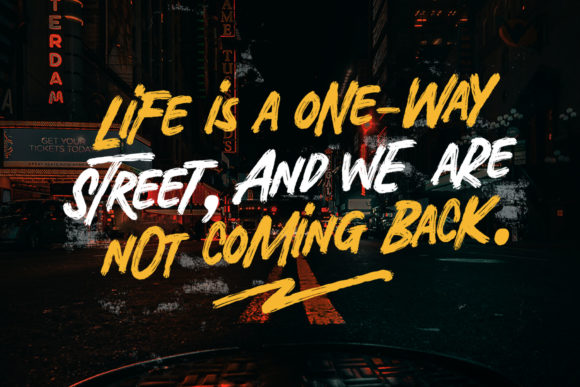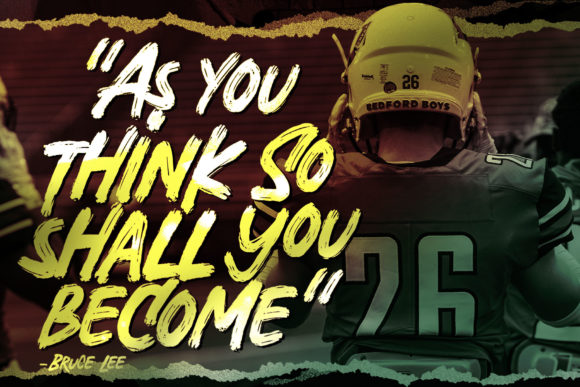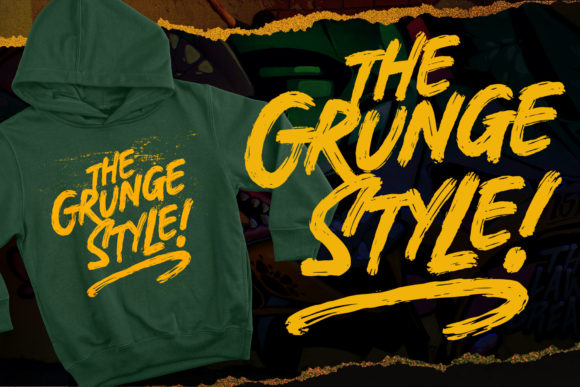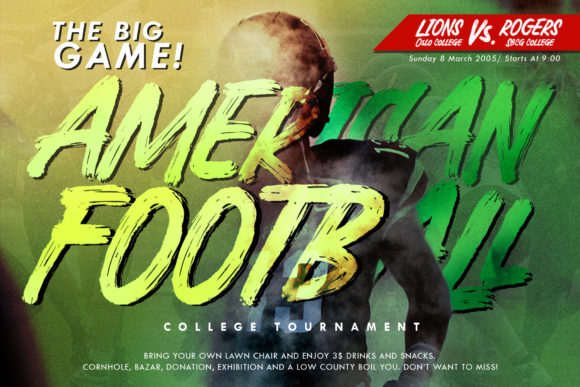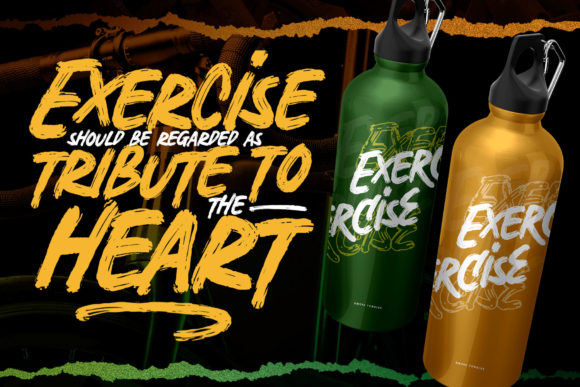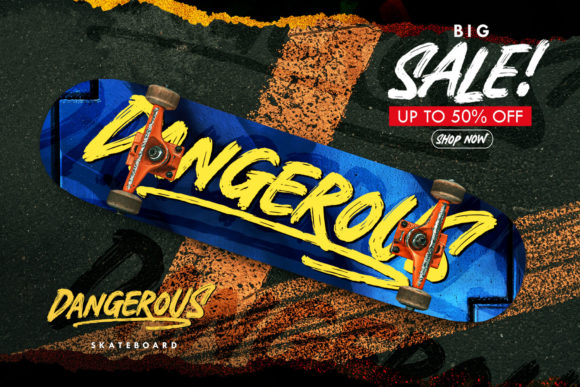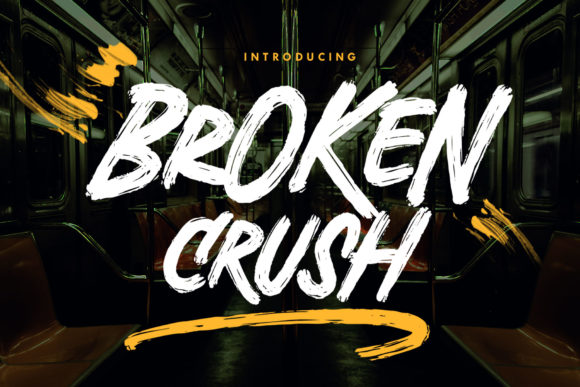
Introducing Broken Crush Font: The Urban Styled Display Font for Informal Designs
Are you tired of using the same old fonts in your designs? Do you want to add a touch of urban style and fun to your projects? Look no further than the Broken Crush Font, a rough textured display font that’s perfect for informal design ideas. In this article, we’ll take a closer look at the Broken Crush Font, its features, and how you can use it to elevate your designs.
What is Broken Crush Font?
Broken Crush Font is a unique and eye-catching display font that’s designed to add a touch of urban grit to your designs. With its rough textured look, this font is perfect for creating bold and edgy designs that stand out from the crowd. Whether you’re working on a branding project, a poster, or a social media graphic, Broken Crush Font is sure to make a statement.
Key Features of Broken Crush Font
- Urban Styled: Broken Crush Font has a distinctly urban feel that’s perfect for designs that need a bit of attitude.
- Rough Textured: The font’s rough texture gives it a unique, handmade look that’s perfect for adding a touch of grit to your designs.
- Display Font: Broken Crush Font is designed specifically for display use, making it perfect for headlines, titles, and other large-format text.
- Fun and Informal: This font is all about having fun and embracing the informal. It’s perfect for designs that need a bit of personality and whimsy.
How to Use Broken Crush Font in Your Designs
Broken Crush Font is incredibly versatile and can be used in a variety of design projects. Here are a few ideas to get you started:
- Branding: Use Broken Crush Font as a logo or title font to add a touch of urban style to your brand.
- Posters: Create bold and eye-catching posters with Broken Crush Font as the star of the show.
- Social Media Graphics: Add a touch of personality to your social media graphics with Broken Crush Font.
- Packaging: Use Broken Crush Font on packaging labels or inserts to add a bit of fun and whimsy.
Tips for Pairing Broken Crush Font with Other Fonts
When pairing Broken Crush Font with other fonts, it’s essential to balance out its bold and edgy look with something a bit more neutral. Here are a few font pairing suggestions:
- Open Sans: This clean and modern sans-serif font provides a nice contrast to the rough texture of Broken Crush Font.
- Lato: This elegant sans-serif font adds a touch of sophistication to balance out the urban grit of Broken Crush Font.
- Merriweather: This classic serif font provides a nice contrast to the bold and edgy look of Broken Crush Font.
Broken Crush Font is a unique and eye-catching display font that’s perfect for informal design ideas. With its urban styled and rough textured look, this font is sure to add a touch of personality and whimsy to your designs. Whether you’re a designer, craft, or DIY enthusiast, Broken Crush Font is a great addition to your font library.